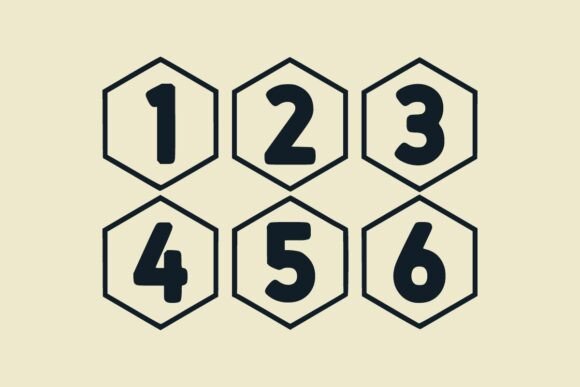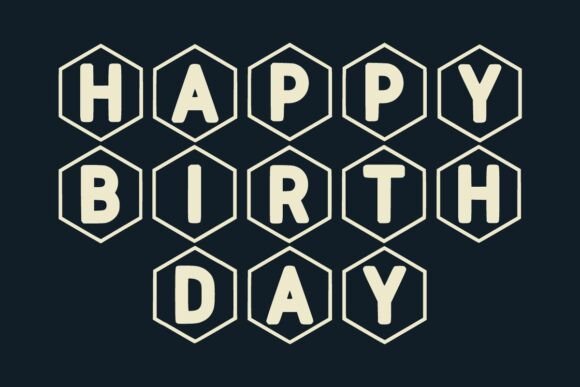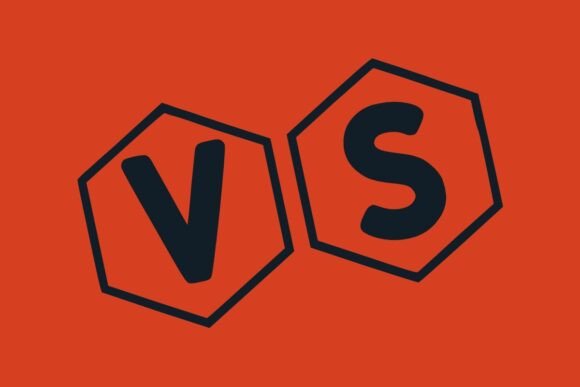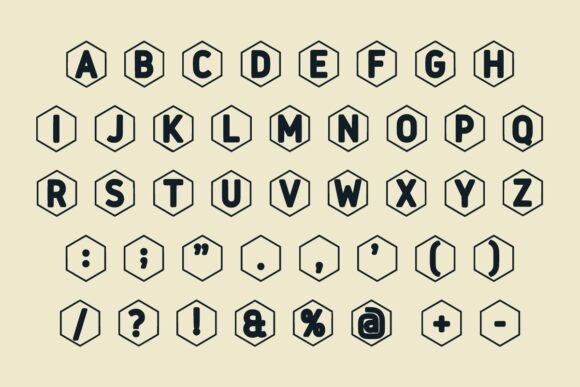
Introduction to Hexagon Font
Have you ever stumbled upon a design that instantly makes you feel like a kid again? For designers, it’s a magical moment when a single element can elevate an entire project and bring a smile to their face. That’s exactly what happens when you add the Hexagon Font to your creative project.
With its unique and playful frames around each letter, the Hexagon Font is a design resource that can add a touch of youth and joy to any project. Whether you’re working on a promotional campaign, creating party invitations, or designing banners for a gathering, this high-quality font is sure to make a statement. And the best part? It’s available for free download, complete with a transparent background, making it easy to integrate into your design.
Key Features of Hexagon Font
- High-quality vector design with a transparent background, ideal for creative projects and design resources.
- Unique hexagonal shape with clean lines and geometric design, perfect for modern and futuristic designs.
Honest Review: Hexagon Font
As a designer, I’m always on the lookout for high-quality design resources that can elevate my creative projects. The Hexagon Font is one such resource that caught my attention. In this review, I’ll share my honest thoughts on what works well and what could be improved.
- High-quality typography: The Hexagon Font offers crisp, clean typography that’s perfect for a variety of creative projects.
- Limited customization options: While the font itself is great, I found that there are limited customization options available.
Overall, I’m impressed with the Hexagon Font’s high-quality typography and free download option. However, I wish there were more customization options available. If you’re looking for a simple, high-quality font for your creative project, the Hexagon Font is definitely worth considering.
The Hexagon Font is ideal for use in a variety of creative projects, including:
- Print and digital advertising
What is the recommended usage for the Hexagon Font?
The Hexagon Font is a versatile design resource that can be used for a wide range of creative projects, from logos and branding to digital products and print materials. It’s perfect for designers who want a high-quality, modern font that can add a touch of sophistication to their designs.